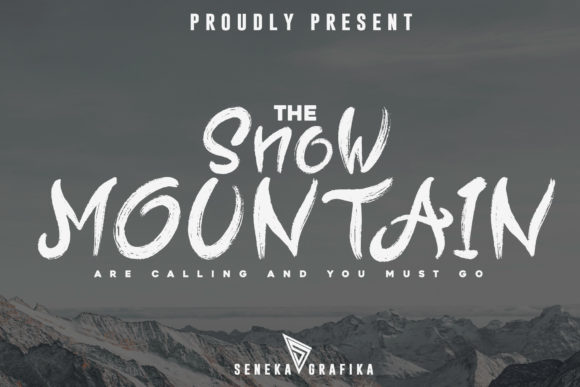
Journey through the enchanting world of Snow Mountain Font, a breathtaking display font crafted by Senekaligrafi Font, designed to awaken your creativity and leave a lasting impression on your audience. Immerse yourself in the captivating allure of its brushed and cool aesthetics, a perfect blend of uniqueness and simplicity that exudes a friendly and inviting charm.
Unleash your imagination and let Snow Mountain Font guide you through a realm of endless possibilities. Its informal nature makes it an ideal companion for creating eye-catching posters, playful postcards, and any project that demands a touch of warmth and approachability. Whether you're a seasoned designer or just starting your creative journey, Snow Mountain Font is your gateway to crafting designs that resonate with your audience.
Picture the bold headlines of your magazine, adorned with the captivating strokes of Snow Mountain Font, commanding attention and inviting readers to delve into your stories. The font's inherent charm adds a touch of sophistication to your designs, making them stand out from the crowd. Its easy-to-read nature ensures that your message is conveyed with clarity and impact, leaving a lasting impression on your readers.
Snow Mountain Font is more than just a font; it's an experience that transforms your designs into works of art. Its versatility extends beyond magazines, making it a perfect choice for a wide range of projects. Whether you're creating social media graphics, website designs, or eye-catching logos, Snow Mountain Font has the power to elevate your creations to new heights.
Embrace the beauty and simplicity of Snow Mountain Font, and watch as your designs blossom into captivating masterpieces. Let your creativity soar, knowing that you have a font that not only enhances your work but also reflects your unique style. Download Snow Mountain Font today and embark on a creative journey like never before.